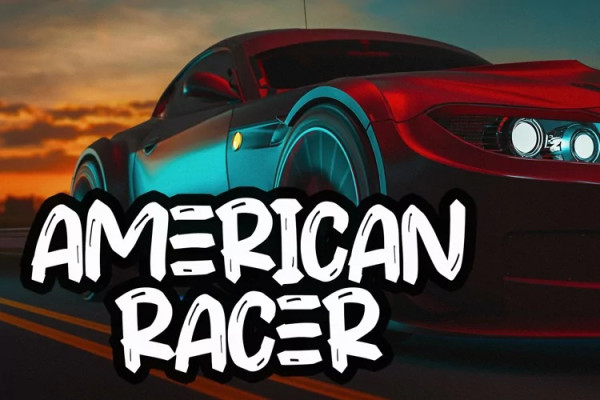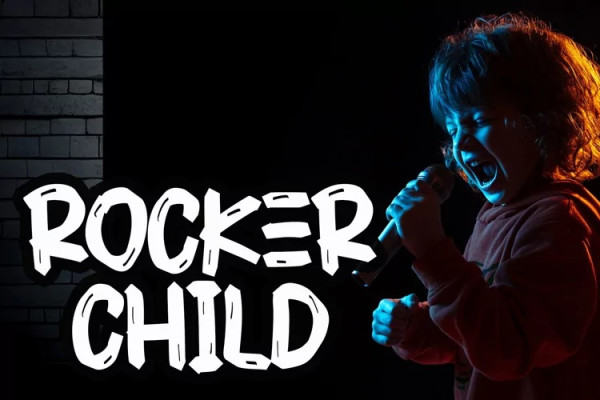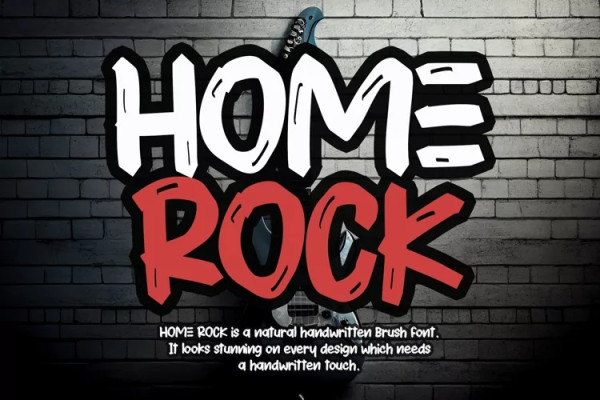
Home Rock Font
Home Rock Font is a natural handwritten brush font. It looks stunning on thank you cards, quotes, greeting cards, logos, business cards, and every other design which needs a handwritten touch.